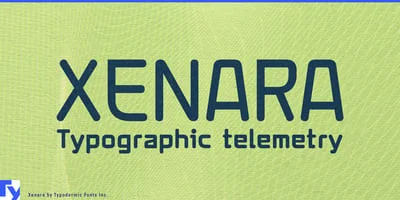
Xenara Font
Xenara offers a fresh typographic approach that balances visual appeal with exceptional legibility.
Common applications include business cards, posters, web headers, advertising materials, book covers, and corporate identity systems.